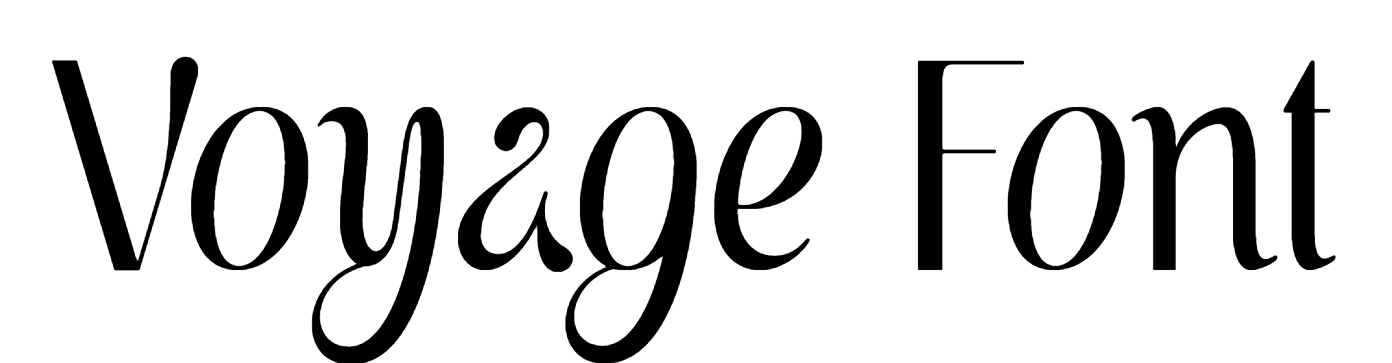
Voyage
Voyage is a serif font designed by Zamroni Hamzah and published by Fontlab (2022). It has the traditional, bookish feel of type you see in novels, newspapers and long-established brands. You can download it for free and test it with your own words in the preview above.
- Designer: Zamroni Hamzah
- Publisher: Fontlab
What You Can Type With Voyage
With complete upper and lowercase letters and all ten digits, Voyage is ready for real wording, not just a single headline. Everyday marks like &, !, ? and @ are there too. Thanks to its accented letters, it also works for Spanish, French, German, Portuguese and Italian, not just English.
Where Voyage Works Best
Designers usually reach for fonts like Voyage when they're making book covers, magazine headlines and classic branding. Its lowercase letters are tall compared to the capitals, which keeps it readable at smaller sizes. Serif fonts shine in headlines and printed text. For long paragraphs on phones, check that it still reads well at small sizes.
Does Voyage support accented letters?
Yes. Voyage includes the accented letters needed for Spanish, French, German, Portuguese and Italian, so it works for more than just English.